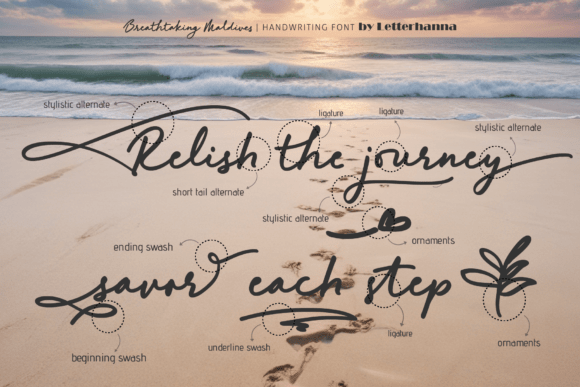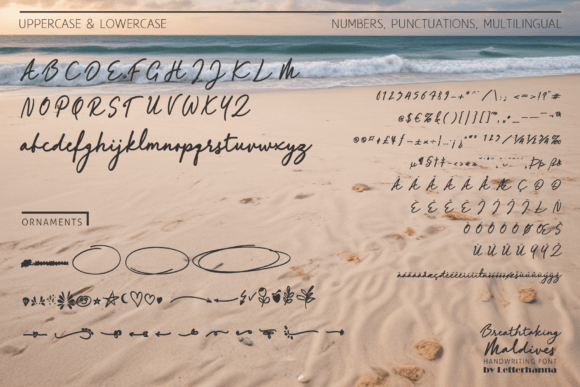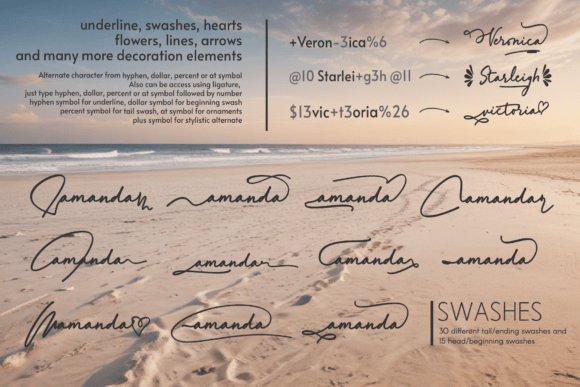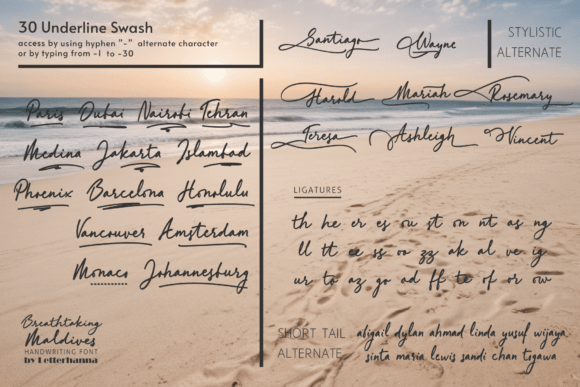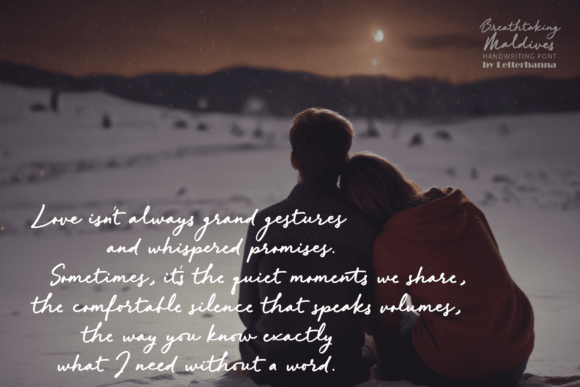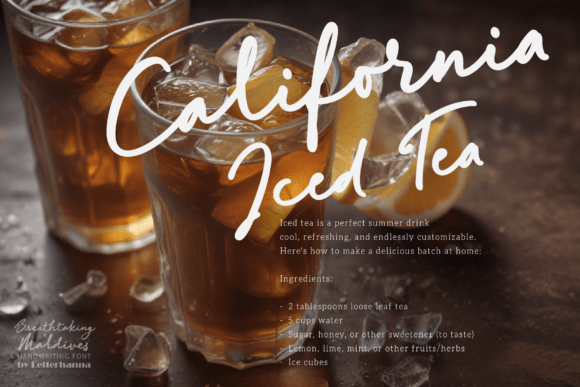
Breathtaking Maldives Font: Elevate Your Designs with Effortless Elegance
Are you searching for a font that exudes sophistication, modern charm, and exclusivity? Look no further than Breathtaking Maldives, a bold signature font designed to make every word stand out. With its confident strokes and elegant feel, this typeface is perfect for designers and crafters looking to add a touch of luxury to their projects.
The Essence of Breathtaking Maldives
Breathtaking Maldives is more than just a font – it’s an experience. Its confident strokes and carefully crafted letterforms evoke a sense of sophistication and modernity, making it perfect for high-end designs, branding, logos, wedding invitations, and social media graphics. This font is designed to make a statement, and with its unique blend of elegance and boldness, it’s sure to leave a lasting impression.
Whether you’re a designer, crafter, or DIY enthusiast, Breathtaking Maldives is the perfect addition to your font collection. Here are just a few ways you can use this stunning font:
- Branding and Logos: Create a luxurious brand identity with Breathtaking Maldives. Its bold, confident strokes make it perfect for logos, business cards, and letterheads.
- Wedding Invitations: Make your wedding invitations truly special with Breathtaking Maldives. Its elegant feel and sophisticated charm make it perfect for formal wedding announcements.
- Social Media Graphics: Elevate your social media graphics with Breathtaking Maldives. Use it to create eye-catching headlines, quotes, and promotional graphics that are sure to grab attention.
- High-End Designs: Whether you’re designing a luxury product, a high-end service, or a premium experience, Breathtaking Maldives is the perfect font to convey exclusivity and sophistication.
What Sets Breathtaking Maldives Apart
So, what makes Breathtaking Maldives so special? Here are just a few features that set it apart from other fonts:
- Unique Letterforms: Breathtaking Maldives features carefully crafted letterforms that are both elegant and bold. Each letter is designed to make a statement, making it perfect for headlines, titles, and signatures.
- Confident Strokes: The confident strokes of Breathtaking Maldives give it a sense of sophistication and modernity. This font is perfect for designers who want to create a bold, eye-catching look.
- Effortless Elegance: Breathtaking Maldives is designed to be effortlessly elegant. Its smooth curves and flowing lines make it perfect for creating luxurious, high-end designs.
Tips for Using Breathtaking Maldives
Here are a few tips for getting the most out of Breathtaking Maldives:
- Use it sparingly: Breathtaking Maldives is a bold font, so use it sparingly to make a maximum impact. Use it for headlines, titles, and signatures, and pair it with a simpler font for body text.
- Experiment with colors: Breathtaking Maldives looks stunning in a variety of colors. Experiment with different colors and gradients to find the perfect look for your project.
- Mix and match: Don’t be afraid to mix and match Breathtaking Maldives with other fonts. Its unique letterforms and confident strokes make it a great pairing with a wide range of typefaces.
Breathtaking Maldives is a truly unique font that is sure to elevate your designs to the next level. Its confident strokes, elegant feel, and exclusive charm make it perfect for high-end designs, branding, logos, wedding invitations, and social media graphics. Whether you’re a designer, crafter, or DIY enthusiast, Breathtaking Maldives is a must-have font that will leave a lasting impression.